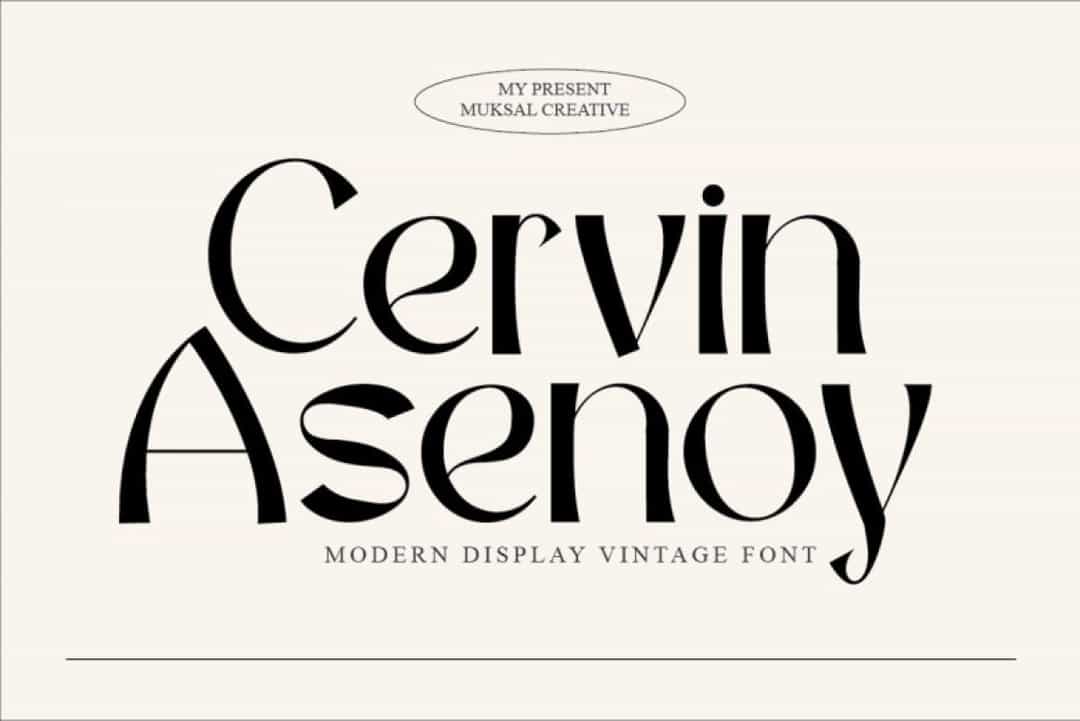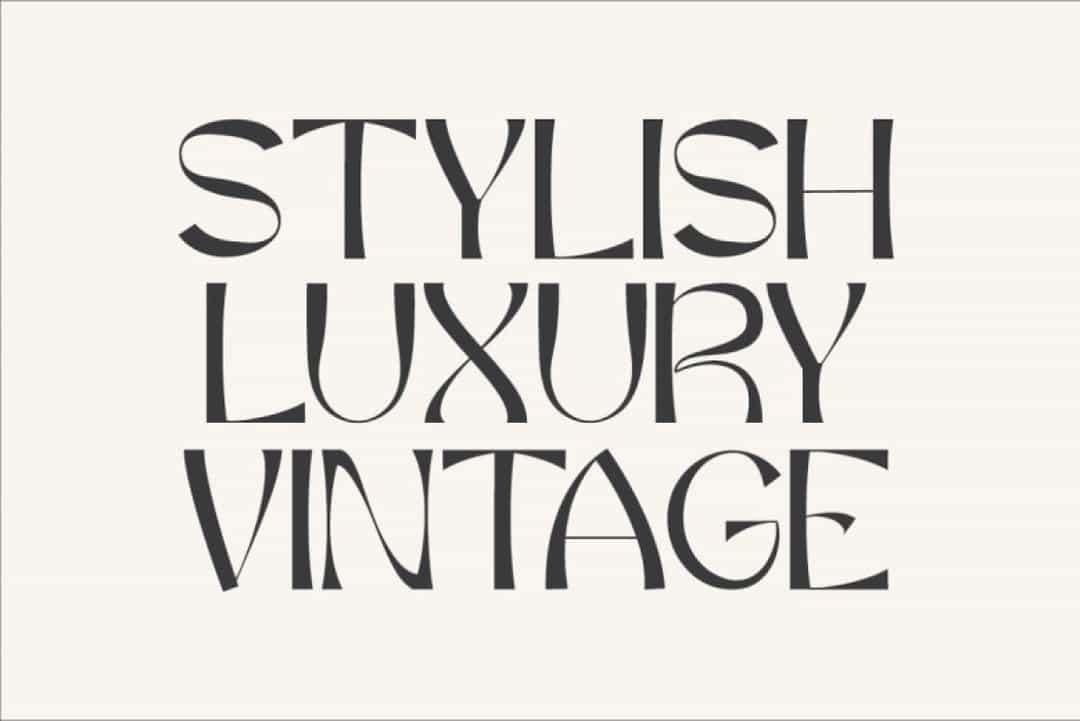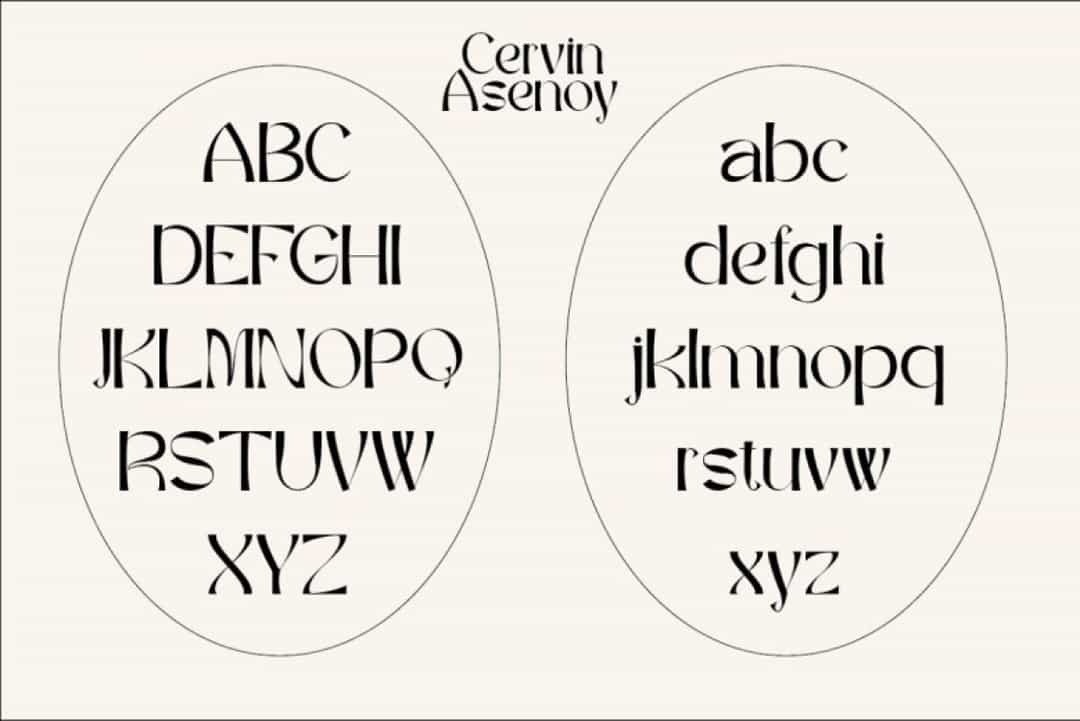
Cervi Asenoyis an elegant Modern display font designed specifically to bring retro and vintage typography into modern projects! Perfect for publications, banners, stationery branding names, invitations and name tags among many other uses – PUA encoded access allows for full use of its swashes, glyphs and characters!